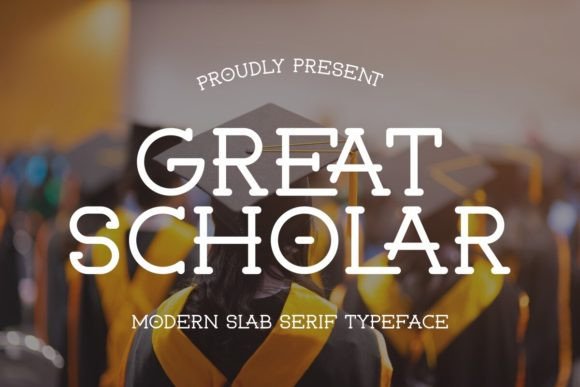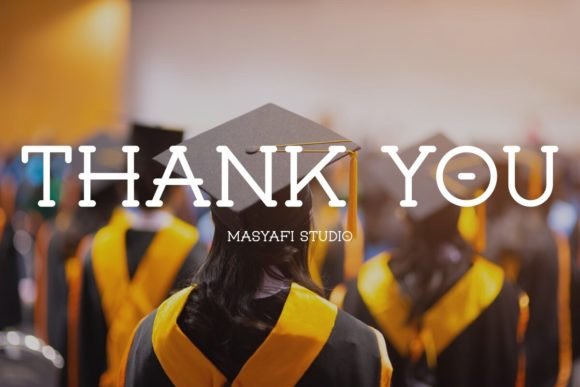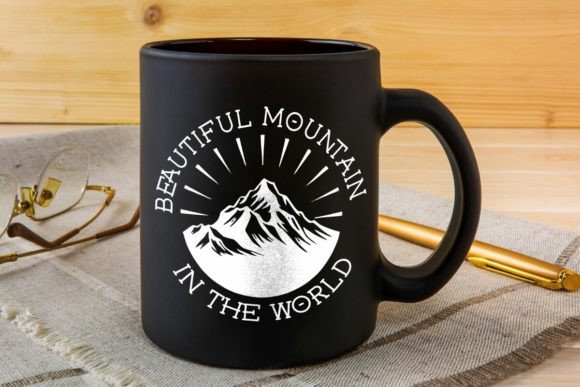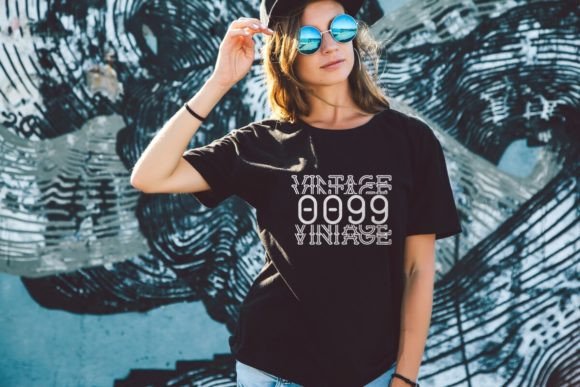
About Great Scholar Font
Introducing Great Scholar – Modern Slab Serif Typeface
Modern Slab Serif Typeface
with a manly, vintage, gentle style. This font is cool for t-shirts, quotes, mugs, tote bags, hats, headlines, overlays, etc.
Modern Slab Serif Typeface
with a manly, vintage, gentle style. This font is cool for t-shirts, quotes, mugs, tote bags, hats, headlines, overlays, etc.